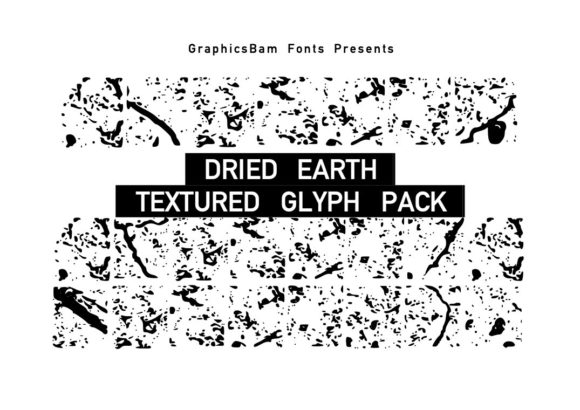
Witness the raw beauty of Dried Earth Glyph Font, a stunning collection of dingbats that captures the essence of cracked and dry earth textures. Unleash your creativity and let your designs resonate with the power of nature.
This remarkable font family is your gateway to crafting captivating logos that leave a lasting impression. Its rugged charm and earthy tones evoke a sense of connection to the elements, making it an ideal choice for businesses and individuals seeking a unique visual identity. Embrace the allure of Dried Earth Glyph Font and watch your designs flourish.
Embark on a journey of artistic expression with Dried Earth Glyph Font. Its versatile glyphs offer endless possibilities, catering to a wide spectrum of design projects. Craft logos that exude strength and resilience, create eye-catching social media graphics that captivate your audience, or design posters and flyers that resonate with the beauty of nature. Unleash your imagination and let Dried Earth Glyph Font guide you to design brilliance.
With Dried Earth Glyph Font, your designs will radiate authenticity and originality. Its organic textures and natural aesthetic bring a touch of the outdoors into your creative endeavors. Whether you're a seasoned designer or just starting your artistic journey, this font family empowers you to create designs that connect with your audience on a profound level. Step into the realm of nature-inspired design and elevate your creations with Dried Earth Glyph Font.